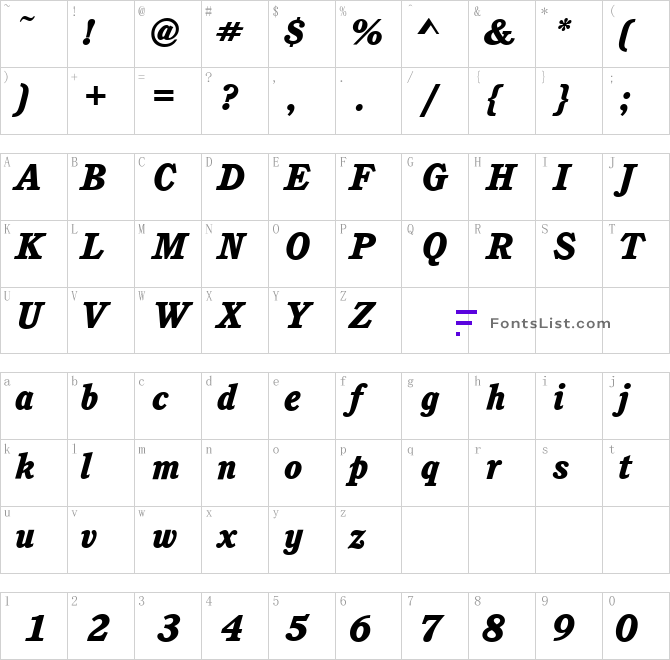
Calgary-Heavy-Italic.ttf is a very beautiful artistic font, Calgary-Heavy-Italic.ttf is widely used in the design and printing of various books and pictures,Calgary-Heavy-Italic.ttf has a strong visual impact,Calgary-Heavy-Italic.ttf is a commonly used font in newspapers, magazines and books, and is used in posters, e-commerce Poster design, store design, logo design, font design and other fields.Calgary-Heavy-Italic.